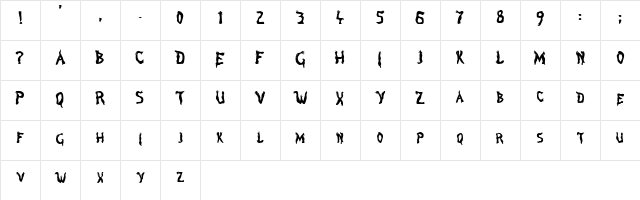
Marsh Gas Regular
Complete Marsh Gas Regular glyph index. Displaying only characters natively supported by Marsh Gas Regular font.
Design Context for Marsh Gas
Marsh Gas is a composed and adaptable typeface that performs quietly and consistently across a wide range of design contexts.